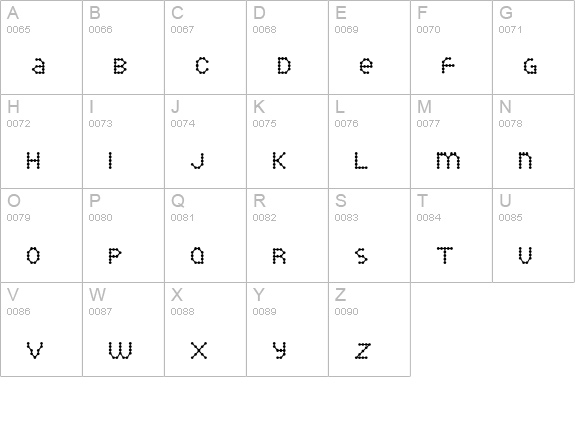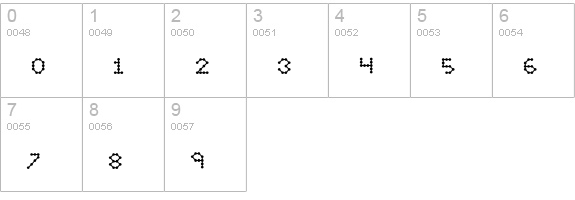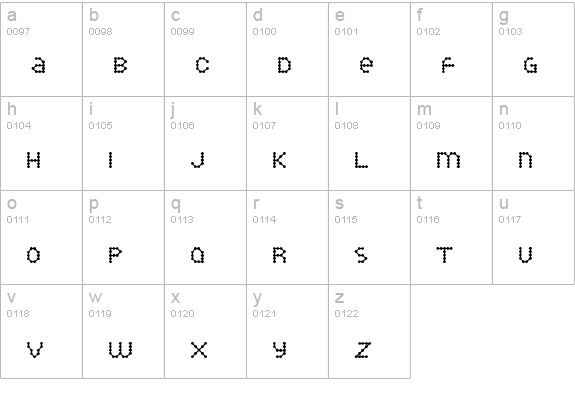
Inkblob Font Details
Inkblob Font is a versatile and eye-catching typeface that will add a touch of creativity and playfulness to any design project. With its unique and organic shapes, this font captures the spontaneous and fluid nature of ink splatters, making it perfect for a wide range of applications, from logo designs to posters and social media graphics. The beauty of Inkblob Font lies not only in its aesthetic appeal but also in its versatility. It comes in a variety of weights and styles, allowing you to create a harmonious and cohesive visual experience across different projects. Whether you're looking for a bold and attention-grabbing headline or a subtle and elegant body text, Inkblob Font has got you covered. One of the best things about Inkblob Font is that it is completely free to use. Yes, you read that right – free! You can download this amazing font at FontsMarket.com, a trusted source for high-quality fonts. By making Inkblob Font freely available, the creators have ensured that designers and creatives of all levels can take advantage of its unique characteristics and unleash their creativity without any barriers. So, if you're in search of a font that will make your designs stand out from the crowd, look no further than Inkblob Font. With its captivating and artistic appeal, coupled with the fact that it is freely available to download at FontsMarket.com, this font is a must-have in your design arsenal. Embrace the fluidity of ink and let Inkblob Font bring your creative visions to life.